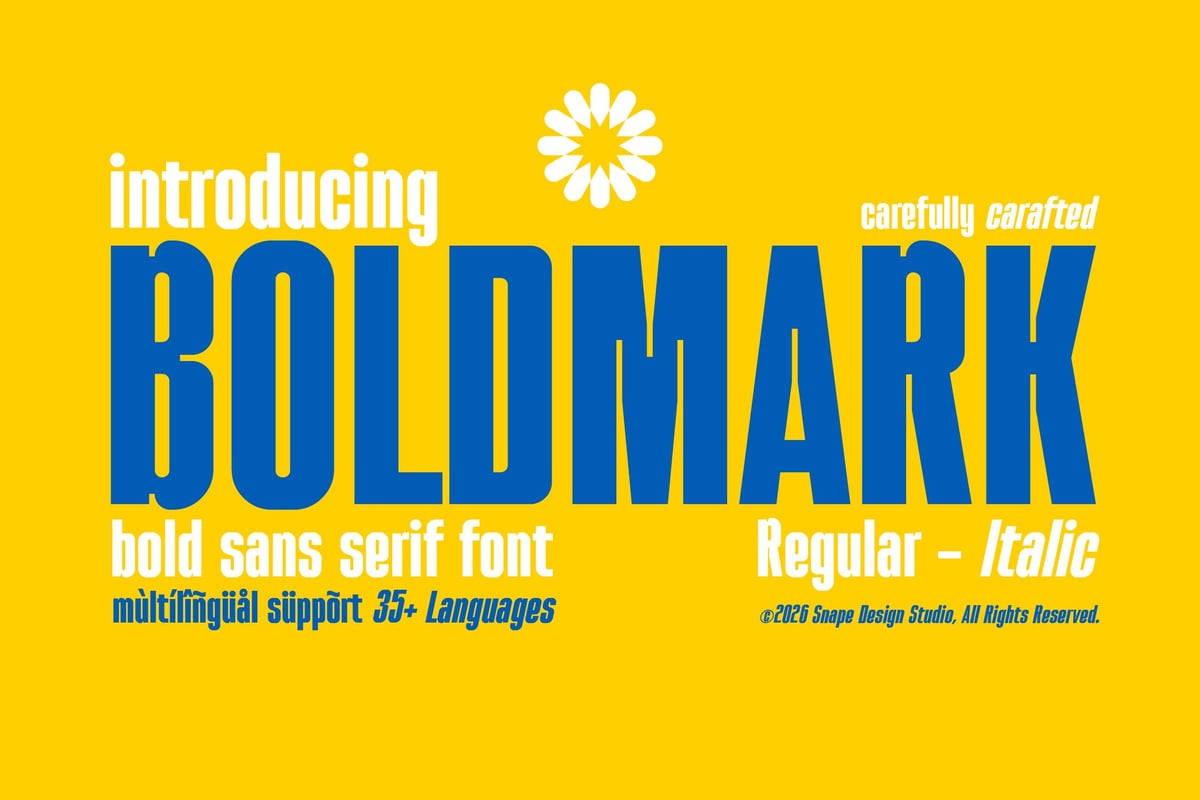
Boldmark - Bold Sans Serif Font
Make a powerful statement with Boldmark - the bold sans serif font engineered for commanding headlines and memorable branding. Boldmark delivers strength and confidence through carefully crafted letterforms with clean shapes and solid structure. This robust typeface ensures exceptional readability across both print and digital applications, making it the perfect choice for designers who need typography that commands attention. Available in Regular and Italic styles, Boldmark provides the flexibi...